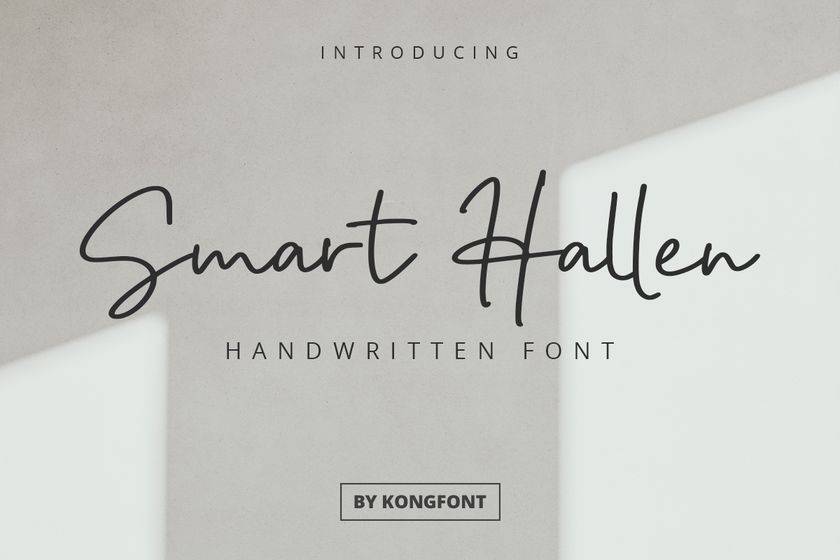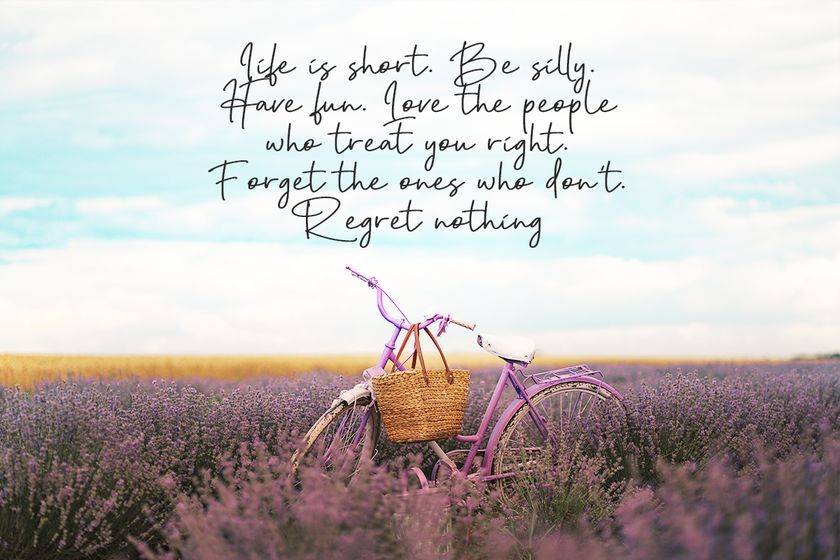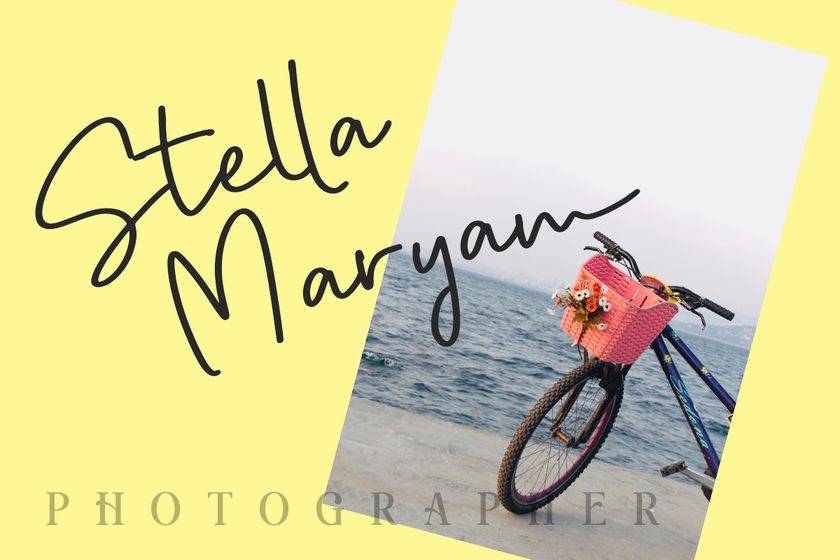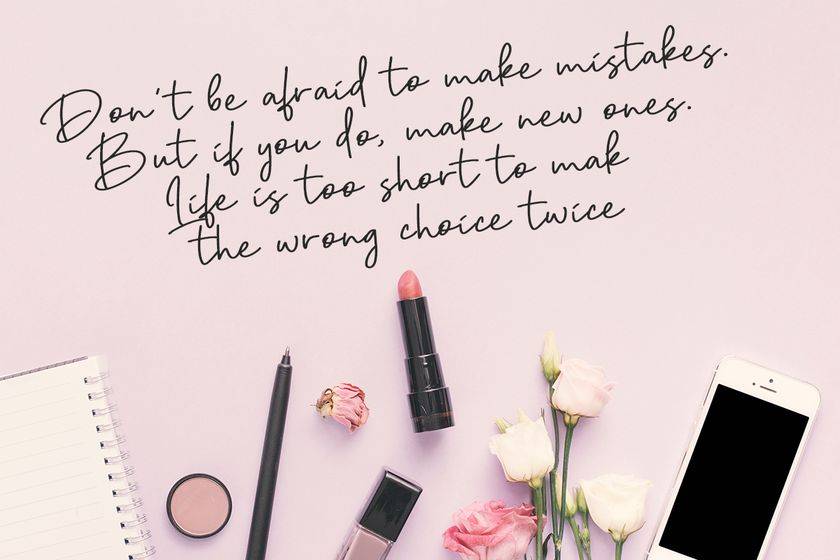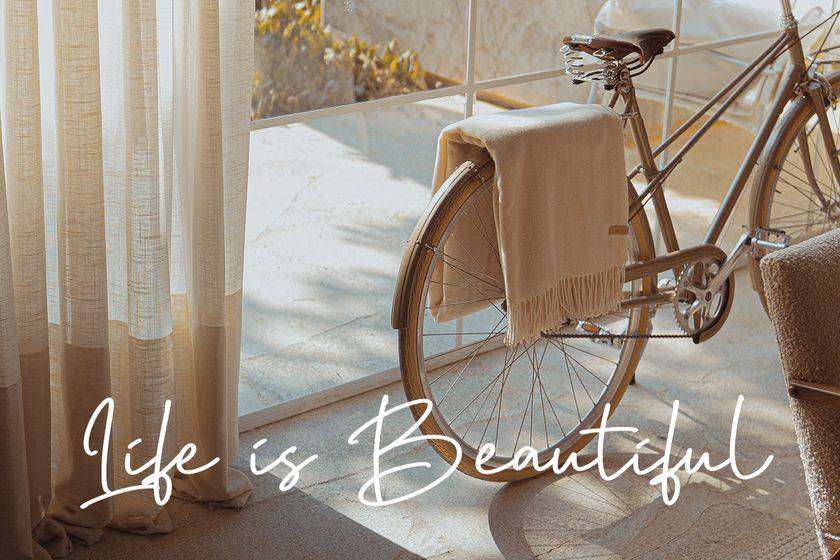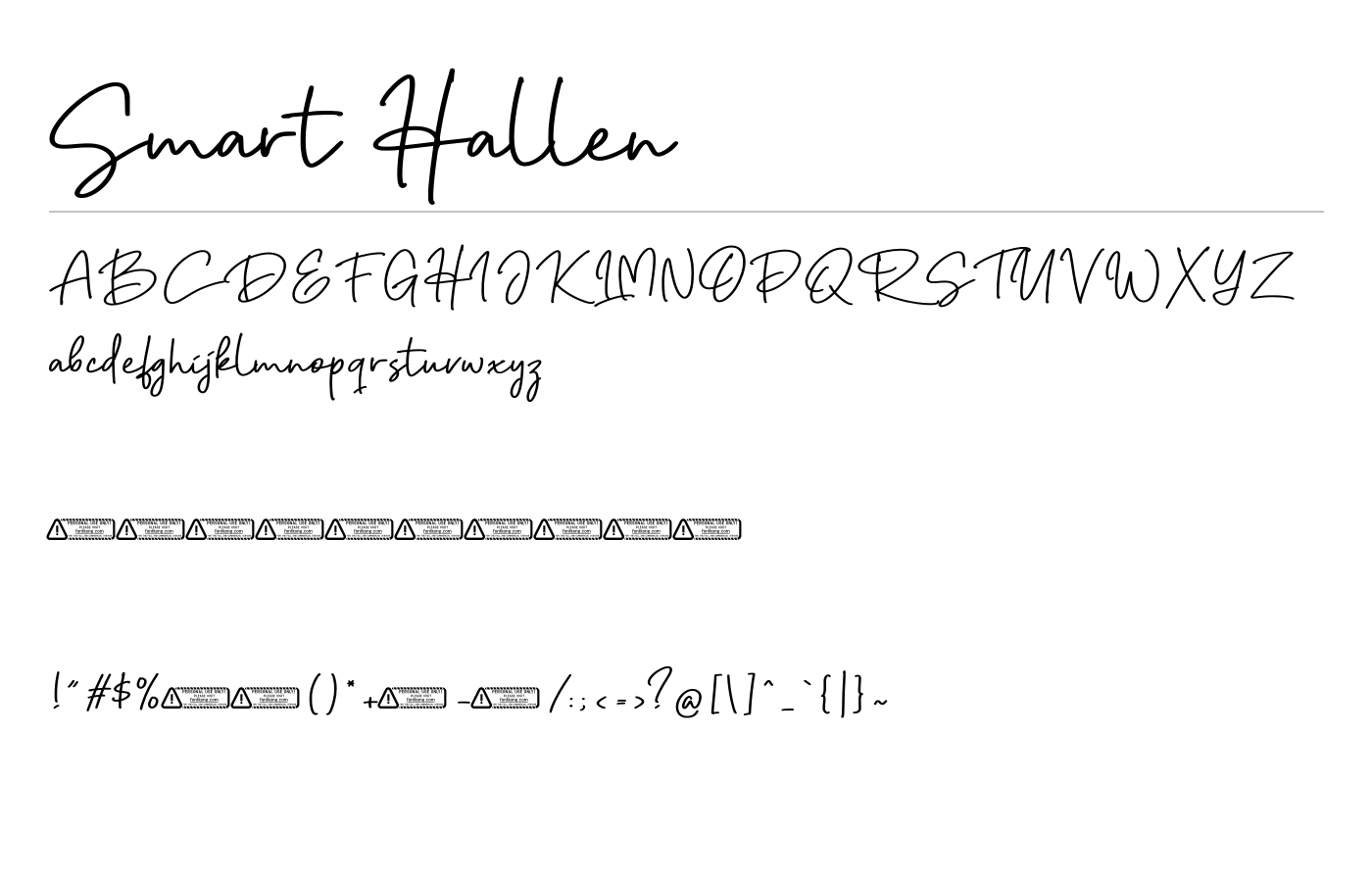
Smart Hallen is a delicate and modern script font featuring a casual, handwritten style with slender strokes and elegant curves. Its tall x-height and flowing letterforms give it a refined yet approachable feel, making it ideal for personal branding, invitations, and stylish headlines. This font works well where a touch of sophistication combined with a natural, informal vibe is desired.
Smart Hallen Font
About Smart Hallen Font
| Font family | Smart Hallen Font |